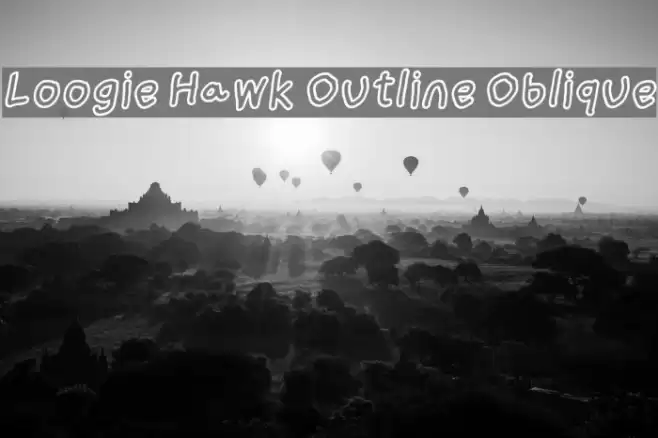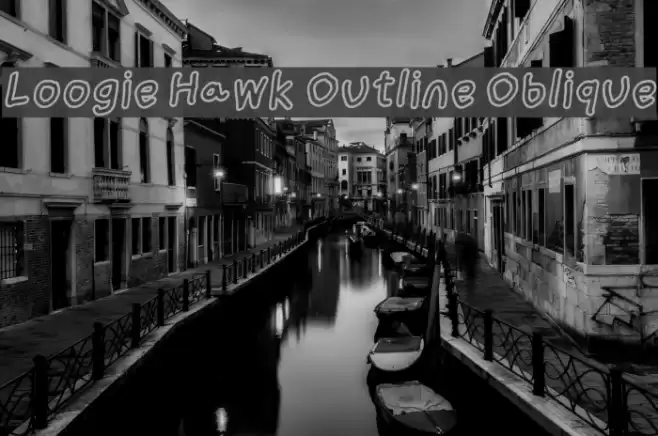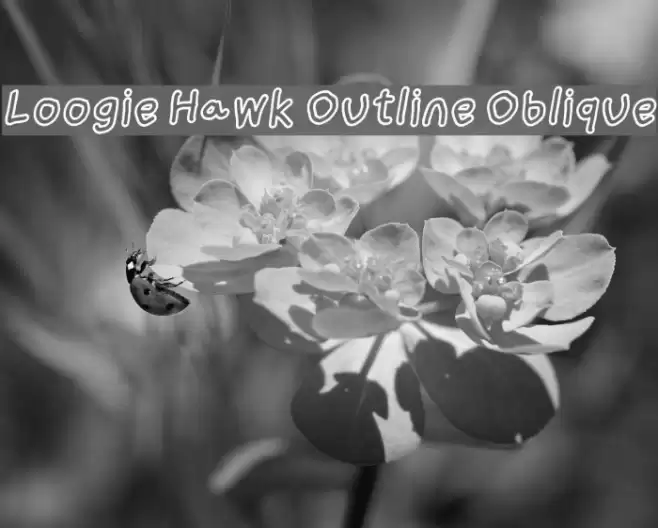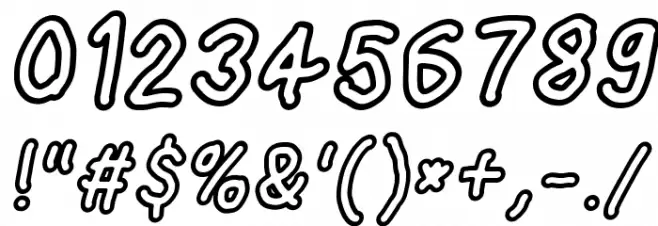
Loogie Hawk Outline Oblique Font
Loogie Hawk Outline Oblique Description
This playful and bold font features an outline style with a slight oblique slant, giving it a dynamic and energetic appearance. The characters are rounded and have a hand-drawn quality, making them feel approachable and informal. The outline design adds a layer of depth and interest, making it stand out in various applications. The font maintains consistent thickness throughout, ensuring readability while adding a touch of whimsy. Its unique style is perfect for projects that require a fun and engaging look.
A playful, outlined, and slightly oblique font with a hand-drawn feel from Uncategorized fonts.
- Proposed Projects: Ideal for children's books, comic strips, playful branding, and creative posters.
- Overall Style: Playful and Energetic